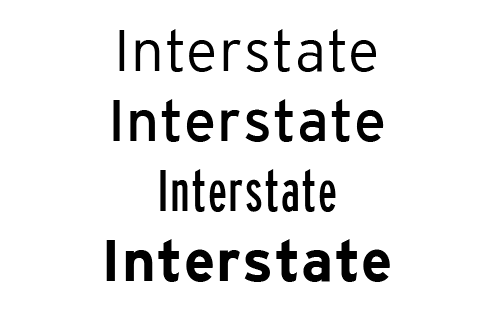
Back again with some more alternative fonts for your graphic design pleasure. This time I want to show you some very fresh fonts, none of the presented fonts are designed prior to 1999. This is partly because Interstate itself is quite new (1993) and it would be strange if I found an alternative that is older than the original. A bit of history - Interstate is based on the font used by the Federal Highway Administration and was one of the most popular typefaces in the 90s. Used often for corporate design and quite flexible enough for a broad range of "topics". Enough bla bla, lets get started.
I think Overpass is the closest.
Ha!I do love Interstate. I already have a few of these– ITC Conduit is very nice.This comment was originally posted on TypeJunkies